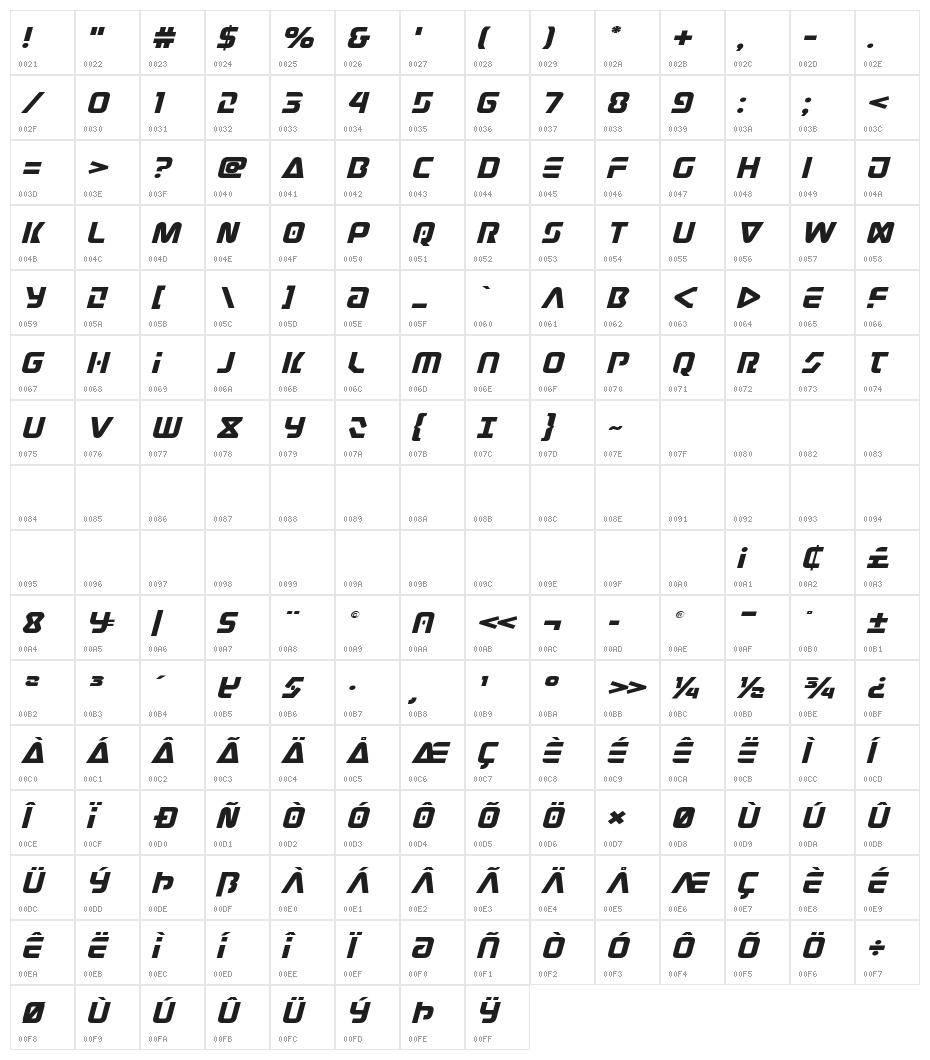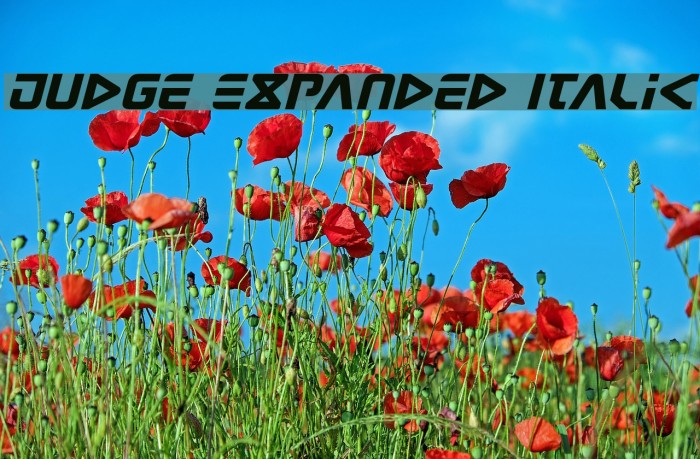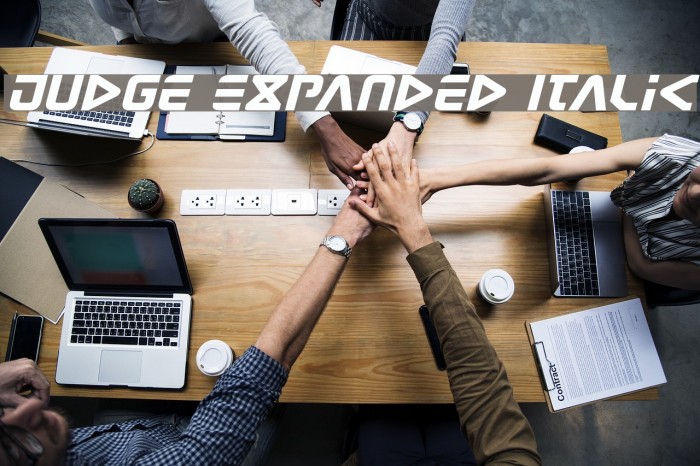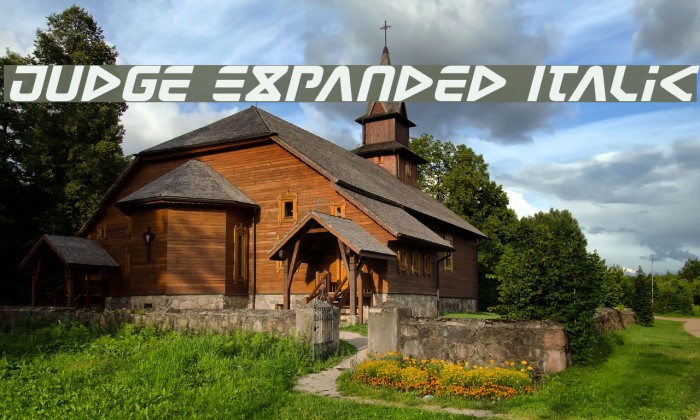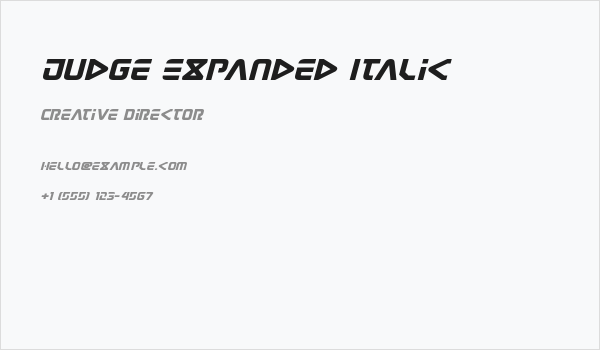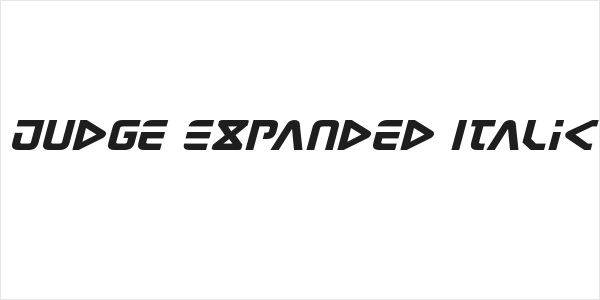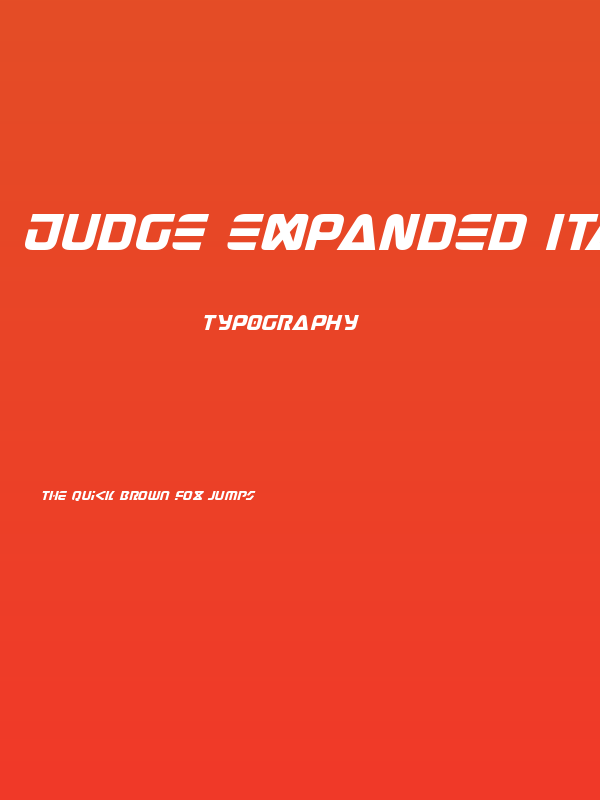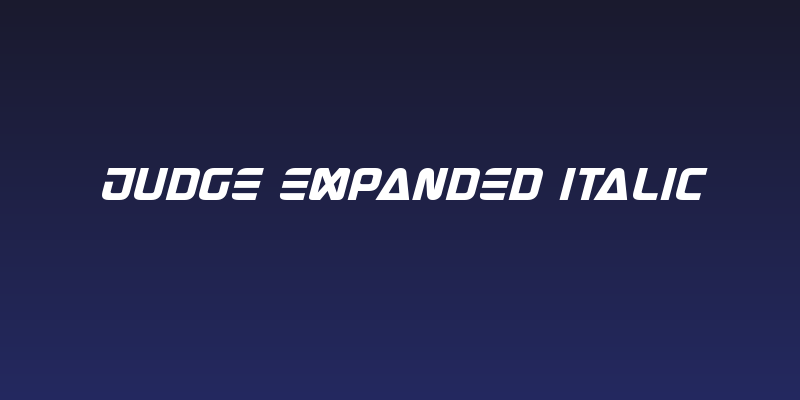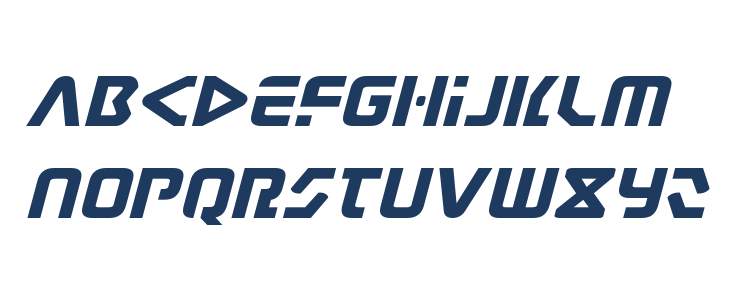
Judge Expanded Italic Font
Judge Expanded Italic Description
This font features a bold and dynamic style with an expanded and italicized form. The characters are designed with a futuristic and geometric aesthetic, incorporating sharp angles and unique cutouts that give it a distinct, modern look. The uppercase and lowercase letters maintain a consistent style, with a strong emphasis on horizontal lines and angular shapes. The numerals and special characters follow the same design principles, ensuring a cohesive appearance across all glyphs. This font's boldness and expanded width make it highly visible and impactful, suitable for attention-grabbing designs.